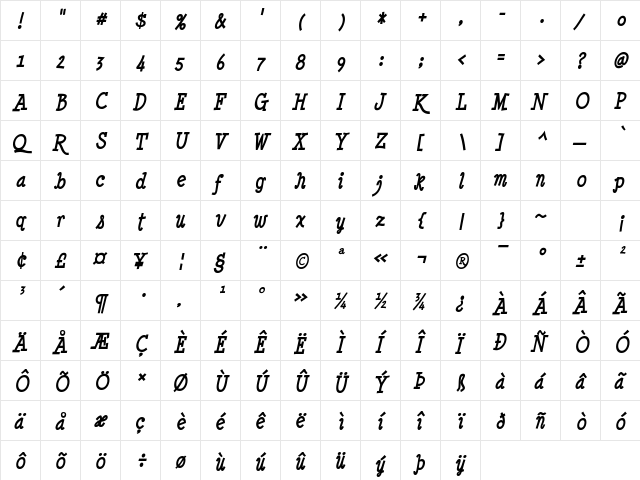
Minya Nouvelle Bold Italic
Design Context for Minya Nouvelle Typeface
Minya Nouvelle is a composed and adaptable typeface that performs quietly and consistently across a wide range of design contexts. The dynamic lean of this cut emphasises speed and emphasis in any layout. The heavy weight commands attention and anchors typographic hierarchies.
Pro Tip: Use Minya Nouvelle for emphasis, pull quotes, and subheadings where its slanted energy can add rhythm to the layout.